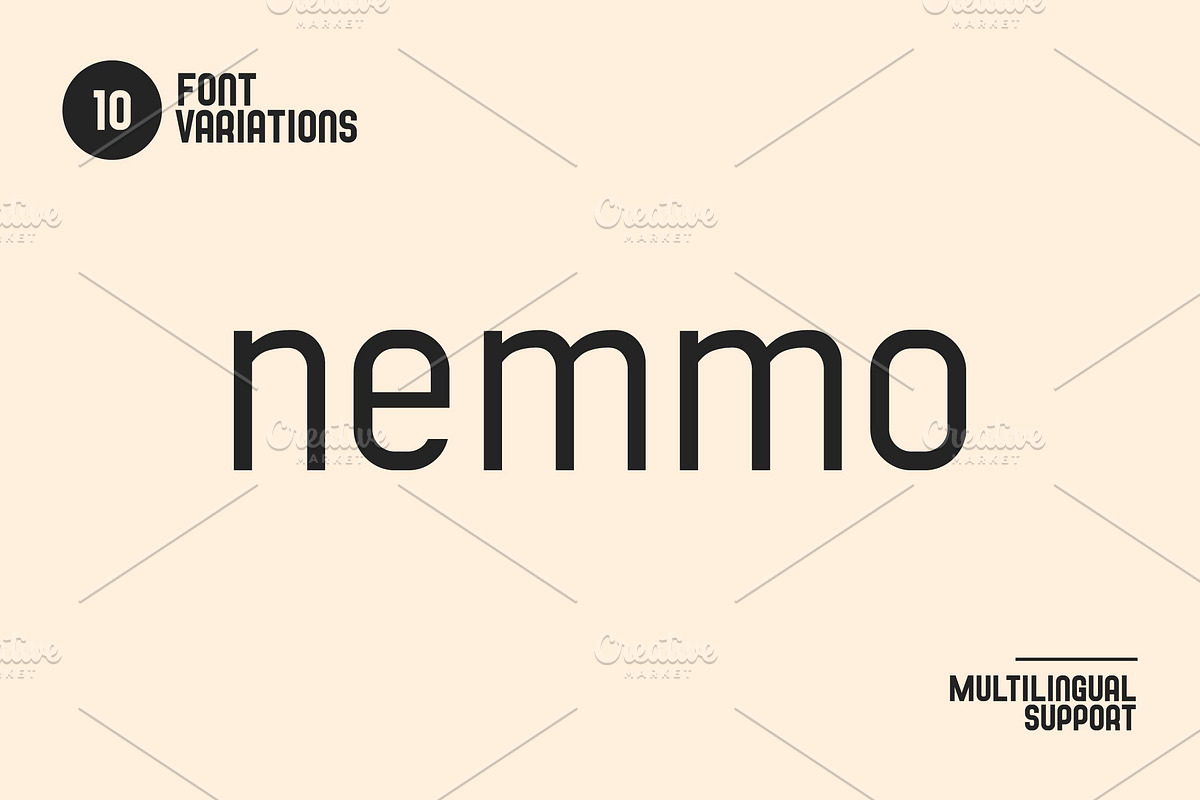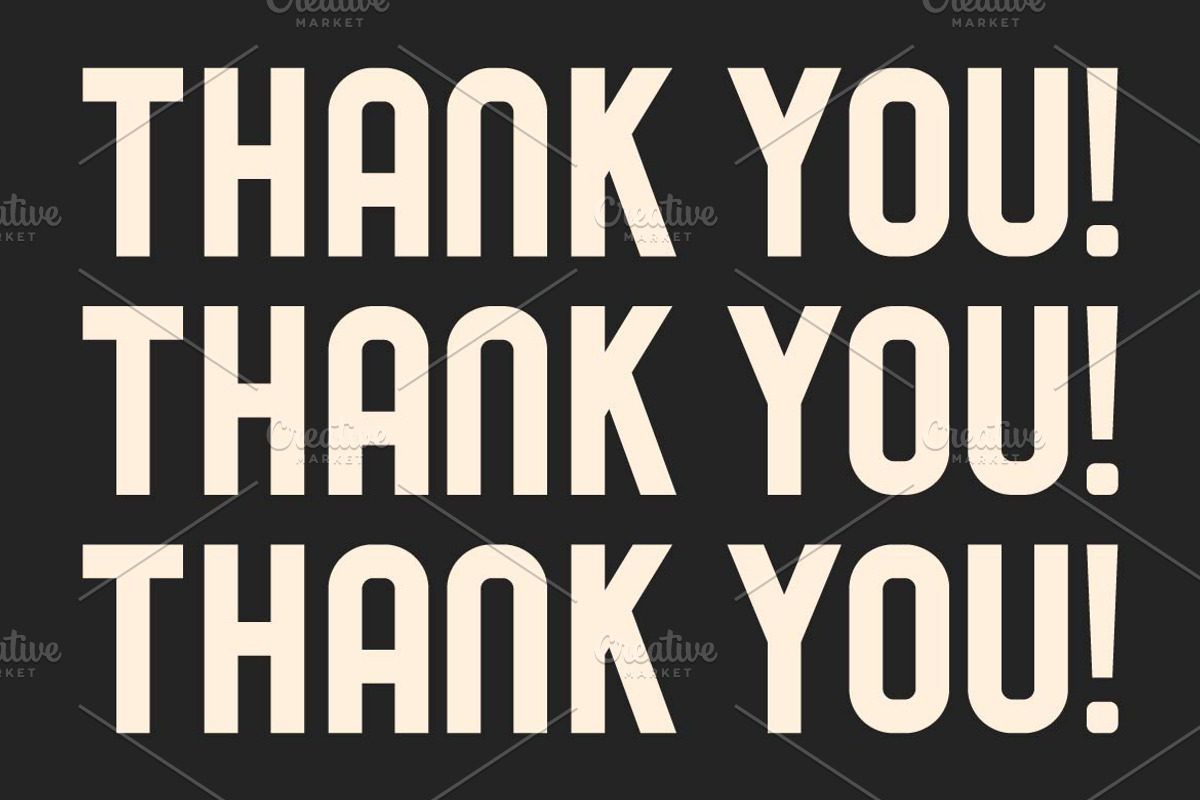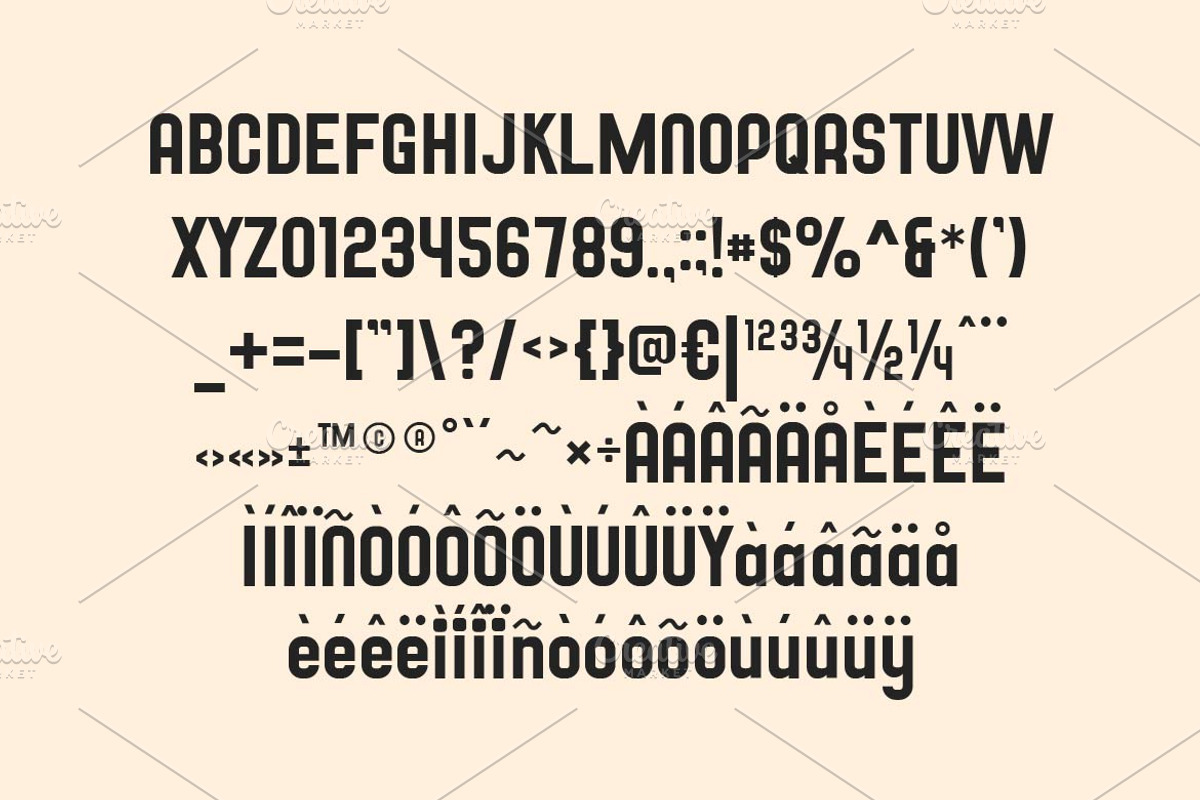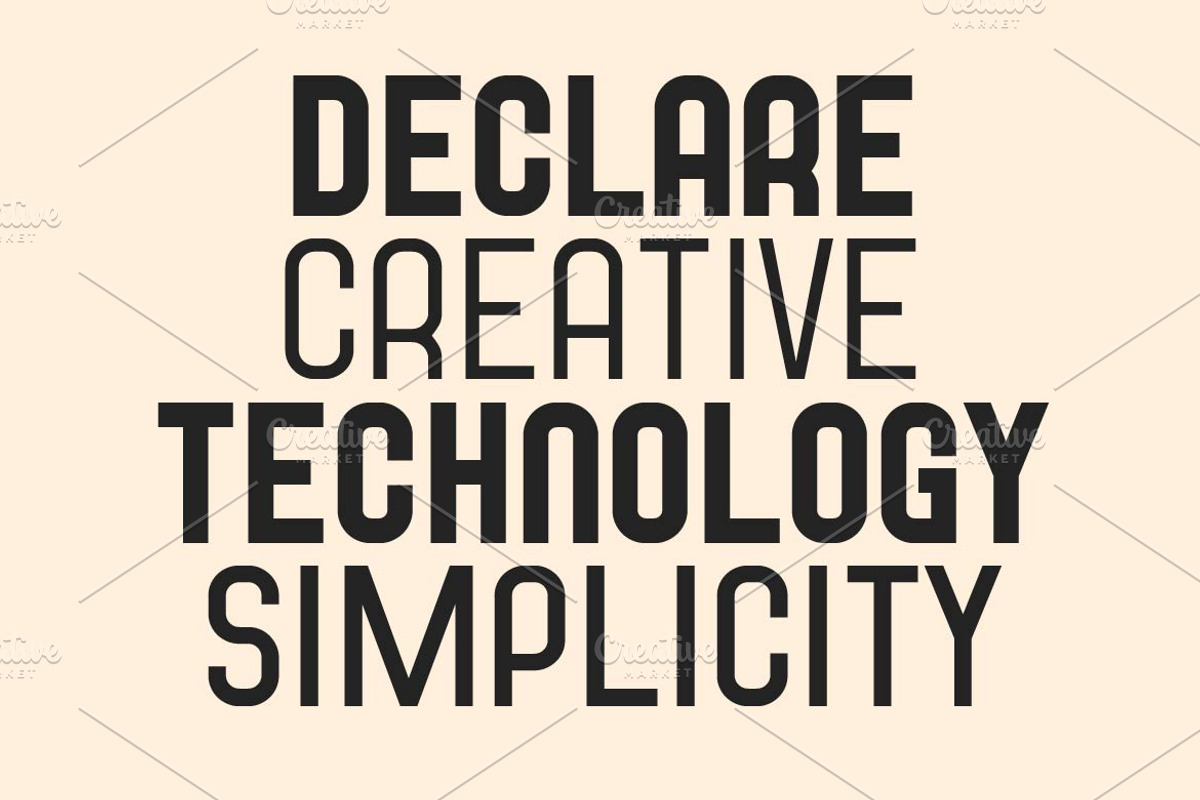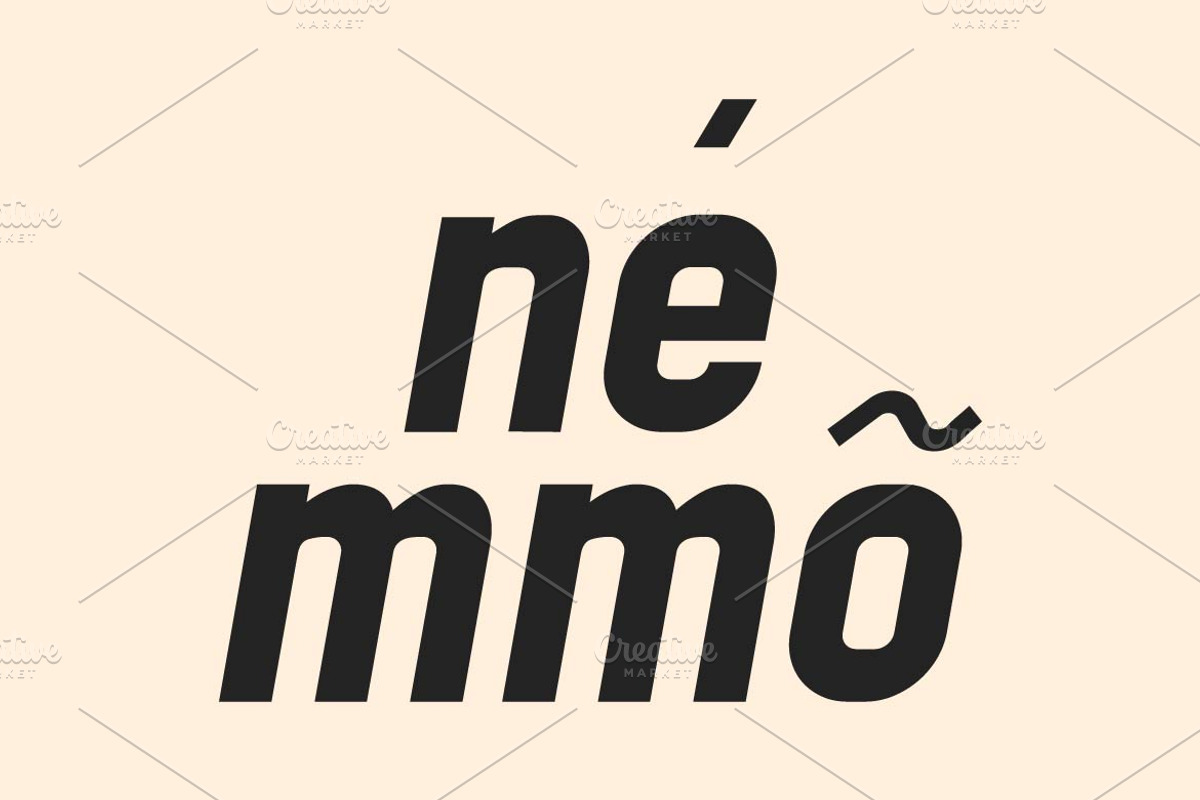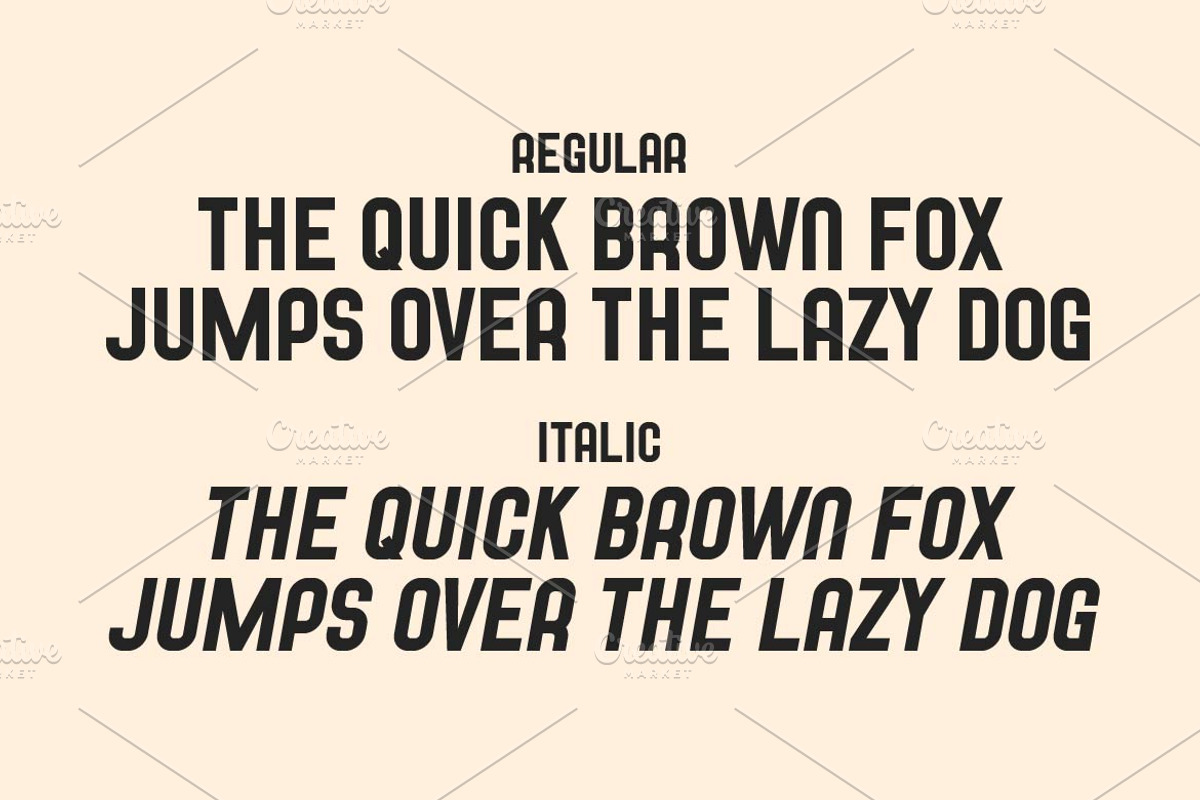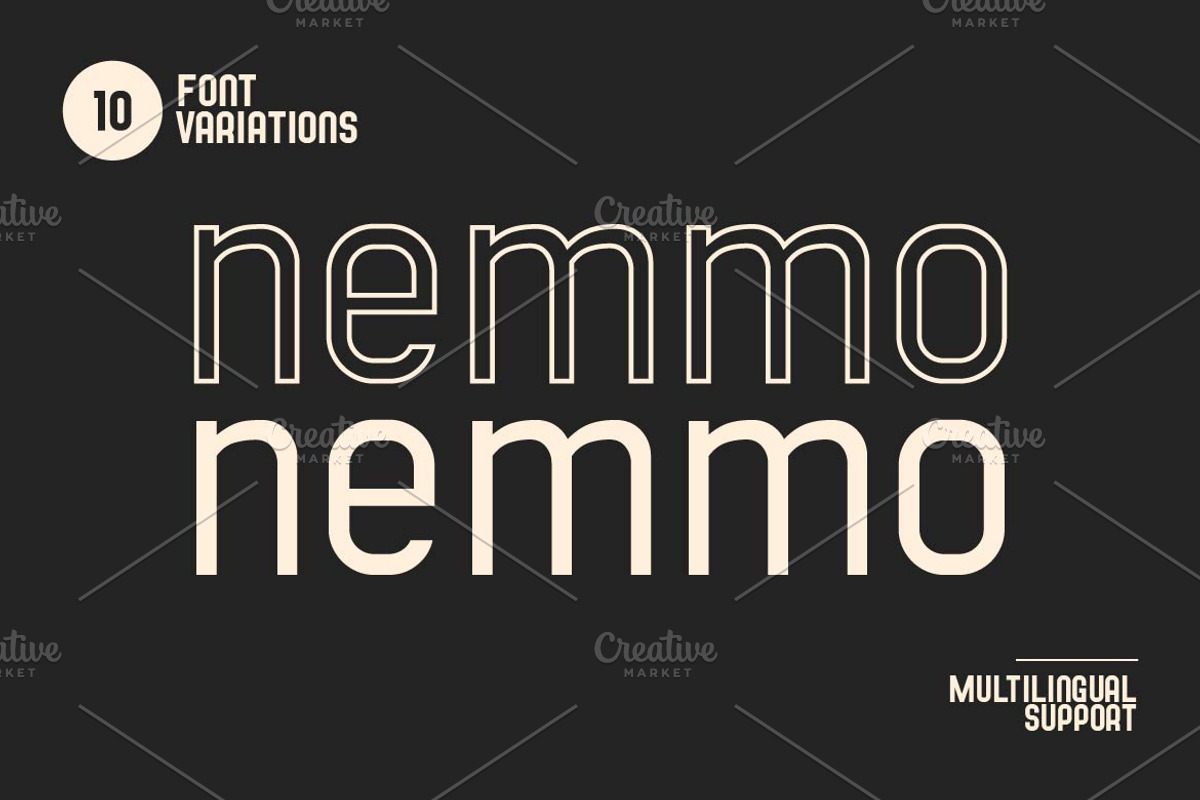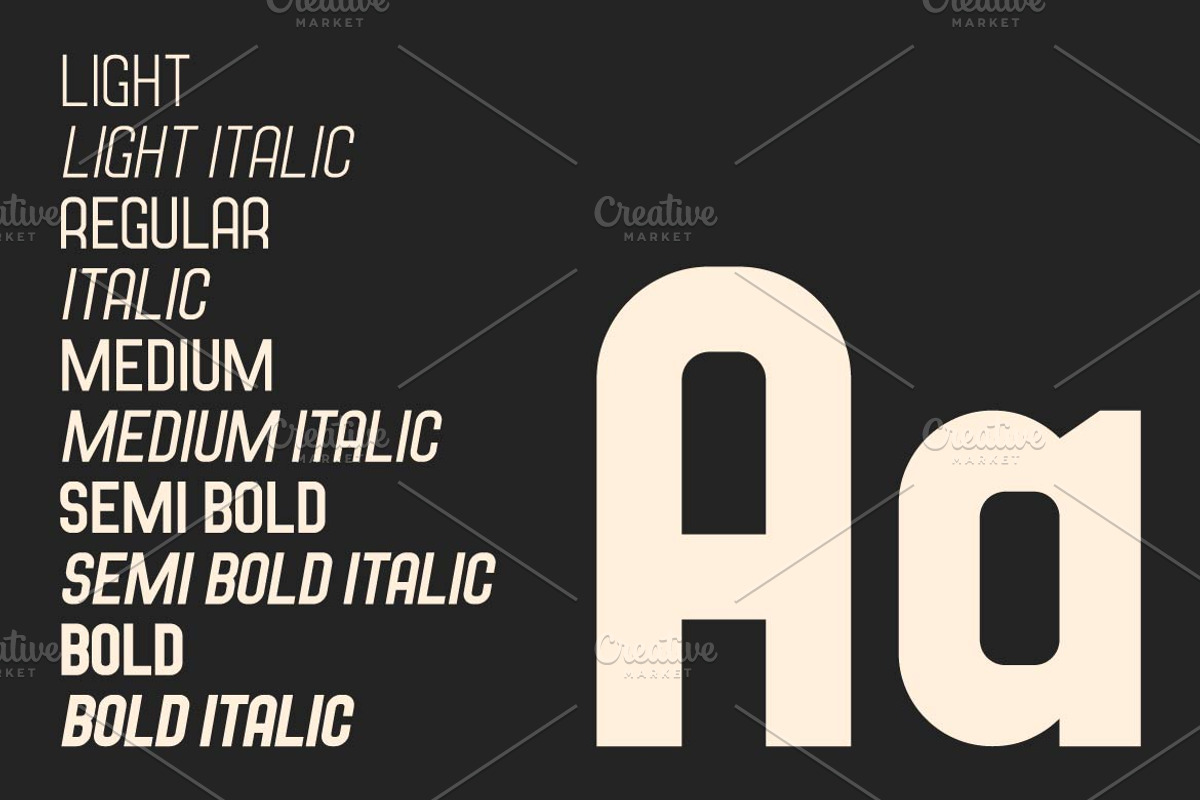
Nemmo Font Family
Nemmo is a creative sans serif font designed with a modern and dynamic feel. Its clean yet distinctive letterforms make it perfect for branding, logos, editorial layouts, and digital projects. With multilingual support, ligatures, and alternates, Nemmo offers versatility and originality, making it an excellent choice for designers seeking a fresh and contemporary aesthetic. This fonts are great for product logo,wedding card logo, clothing brand logo, Vintage design and much more.